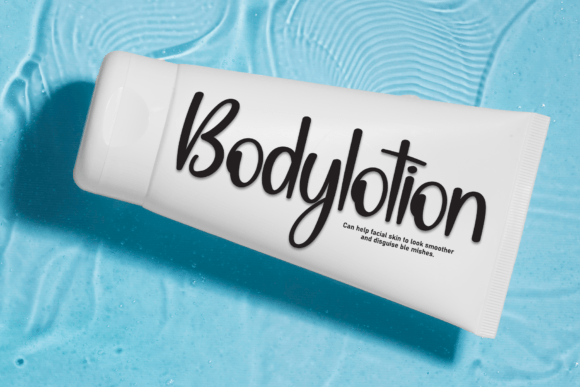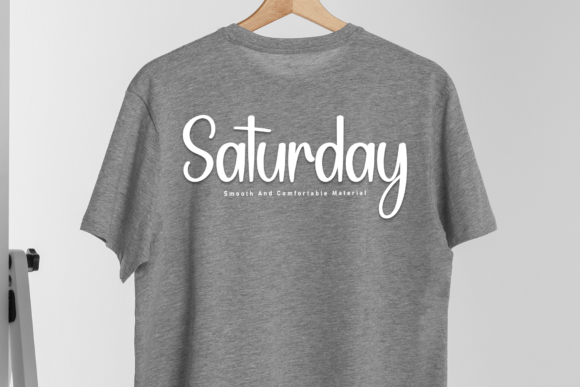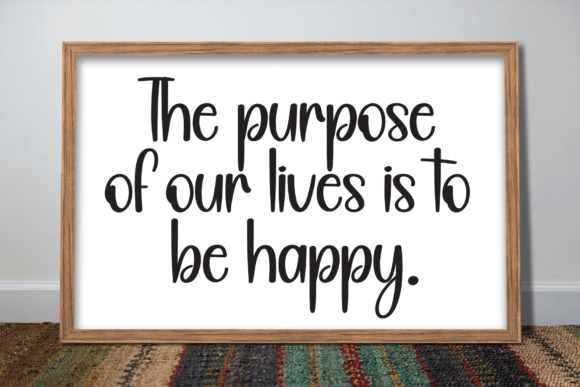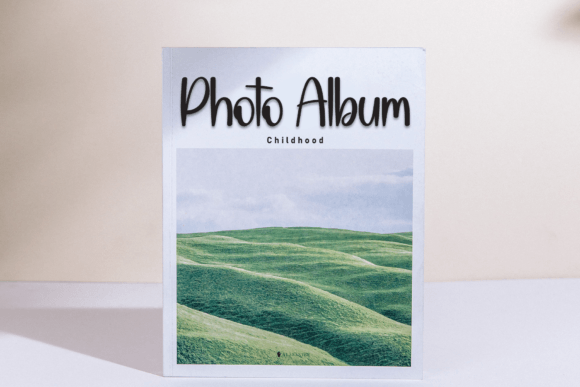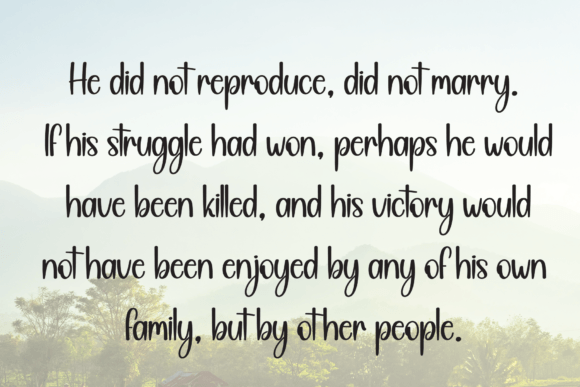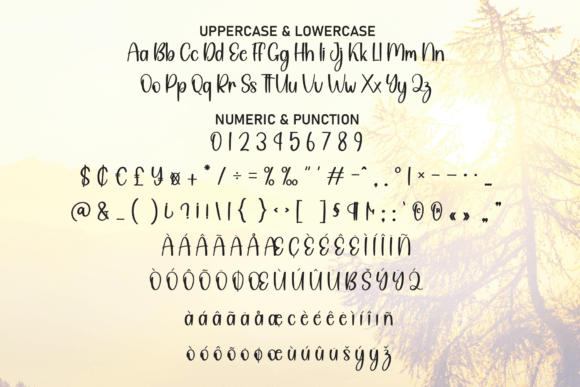
The Perfect Match for Your Creative Vision
As you sit at your desk, staring blankly at a blank page, suddenly a spark of inspiration hits you – the perfect font for your next design project. You’ve seen it before, but can’t quite put your finger on it. It’s elegant, whimsical, and instantly captures the essence of your creative vision. You know exactly what I’m talking about – that special something that elevates your design from ordinary to extraordinary.
Meet the Beautiful Sunshine Font, a stunning handwritten font that’s sure to leave a lasting impression. With its unique blend of sophistication and playfulness, this font is perfect for adding a touch of personality to your projects. Whether you’re designing a wedding invitation, a social media graphic, or a branding package, the Beautiful Sunshine Font is the perfect companion to bring your ideas to life.
As a designer, you know the importance of choosing the right font to convey your message. That’s why the Beautiful Sunshine Font is a valuable addition to any design toolkit. Its timeless style and versatility make it an ideal choice for a wide range of projects, ensuring that your designs stand out from the crowd and leave a lasting impression.
Beautiful Sunshine Font Key Features
- Font Family: Beautiful Sunshine Font is a unique, hand-drawn sans-serif font family designed to evoke a sense of warmth and friendliness.
- Unique Characteristics: The font features subtle, hand-crafted imperfections that give it a natural, organic feel, perfect for adding a touch of personality to designs.
- Character Set: Beautiful Sunshine Font includes a comprehensive character set, including uppercase and lowercase letters, numbers, punctuation, and special characters.
Beautiful Sunshine Font Review
I recently had the chance to work with the Beautiful Sunshine Font, and I must say it’s a delightful addition to any design project. ✨ The font’s playful, hand-drawn feel immediately caught my attention, and it’s perfect for projects that need a touch of whimsy.
- Unique, hand-drawn style that adds a personal touch to designs ✨
- Extensive character set, including numerals, punctuation, and symbols
- Works well in both digital and print applications
- Great for branding, advertising, and editorial projects
- Not ideal for body text due to its cursive, flowing style ⚠️
- Limited support for non-English languages
- May not be suitable for projects requiring a more formal or professional tone
Overall, the Beautiful Sunshine Font is a lovely addition to any designer’s toolkit. While it may not be the best choice for every project, it’s perfect for those that require a playful, creative touch. With its extensive character set and versatility, I’m confident it will become a go-to font for many designers.
The Beautiful Sunshine Font is ideal for creating cheerful and uplifting designs. Use it for invitations, posters, or social media graphics. To get the most out of it, pair it with bright colors and playful illustrations. Experiment with different font sizes and styles to add visual interest.